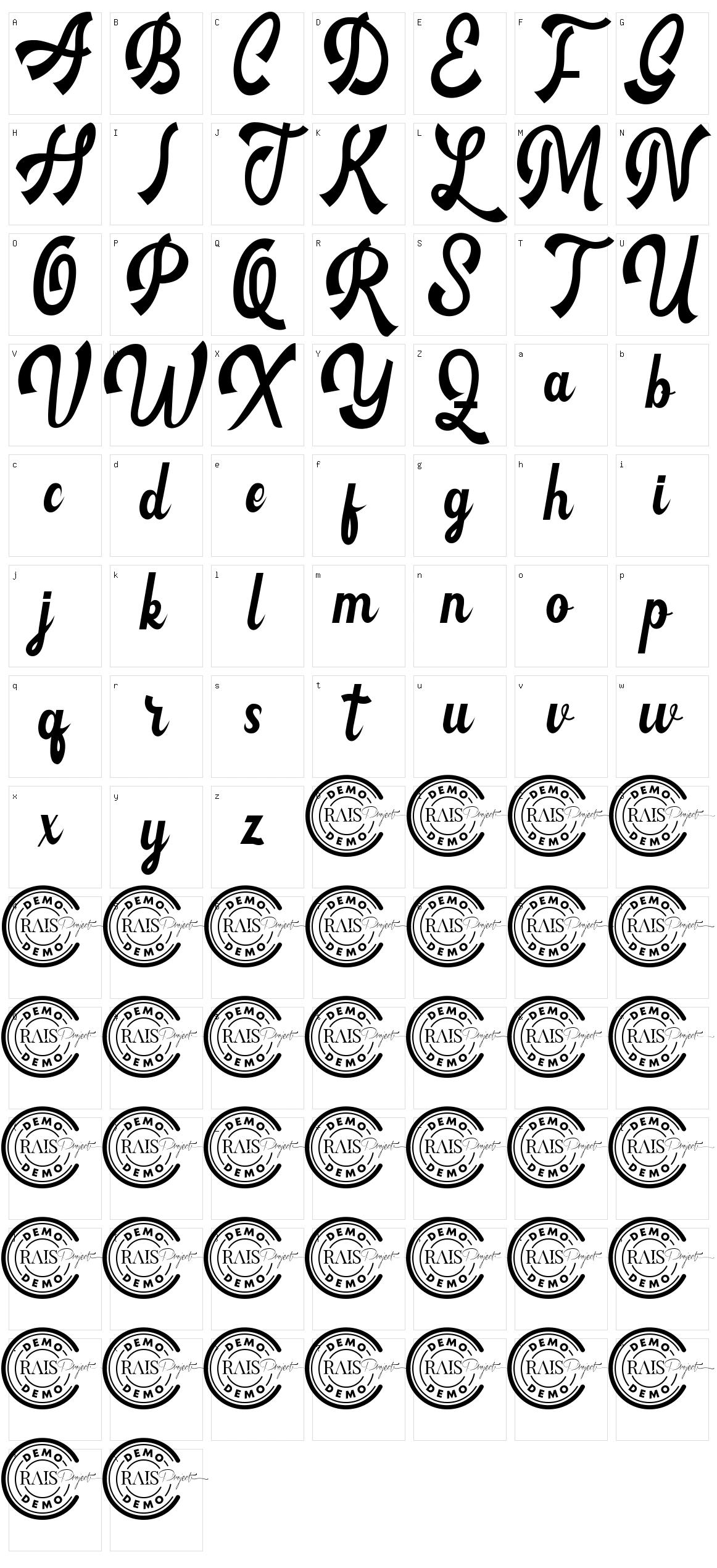
The free font Brownsburg is carefully designed by RaisProject, showcasing a thoughtful balance of creativity and usability and falls under the Old-School font style. When you download the ZIP file, it contains only 78.69 KB of font files, making it lightweight and quick to download. Please review the license details below to understand permitted usage and distribution rights. If license information is not available, we recommend using this font for personal projects only or contacting the author directly for commercial usage permissions.